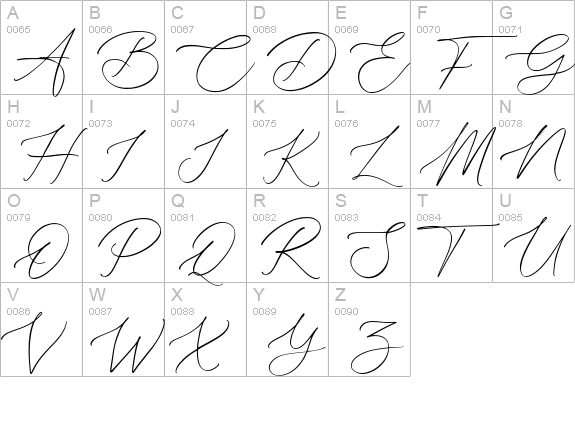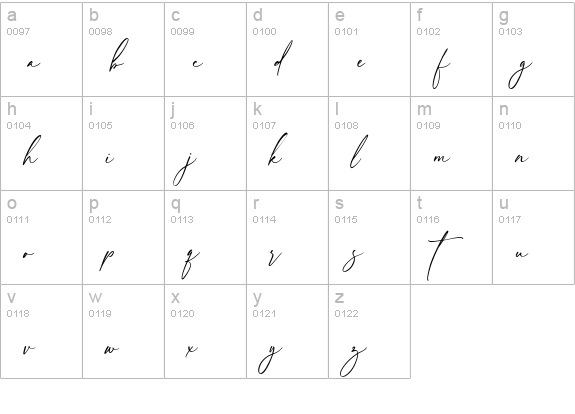
Introducing Rellington Handwritten Font, a charming and versatile typeface that exudes elegance and personality. With its delicate strokes and unique flair, this font is perfect for adding a touch of sophistication to your designs. Whether you're working on invitations, branding, or social media graphics, Rellington Handwritten Font is sure to make a statement.
What sets Rellington Handwritten Font apart is its free-spirited vibe and effortless charm. The flowing lines and intricate details give it a handcrafted feel that is both timeless and modern. This font is a true reflection of creativity and individuality, making it the perfect choice for those looking to stand out from the crowd.